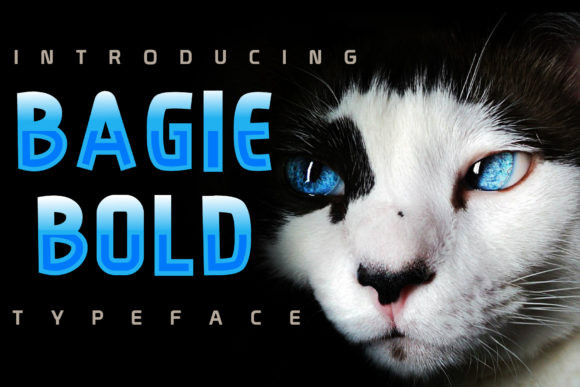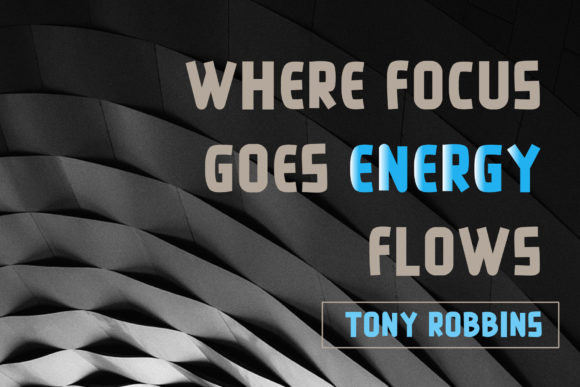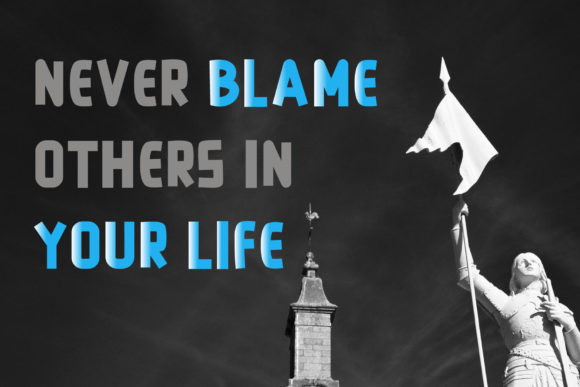
Bagie Bold Font
Bagie Bold is a friendly and classic display font. This versatile display font has a wide range of applications ranging from social media posts to logos and is guaranteed to add an amazing touch to your next design.